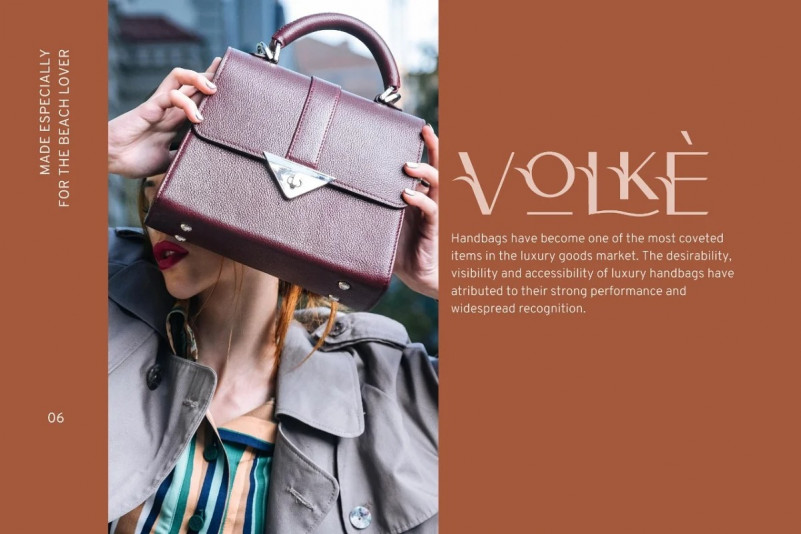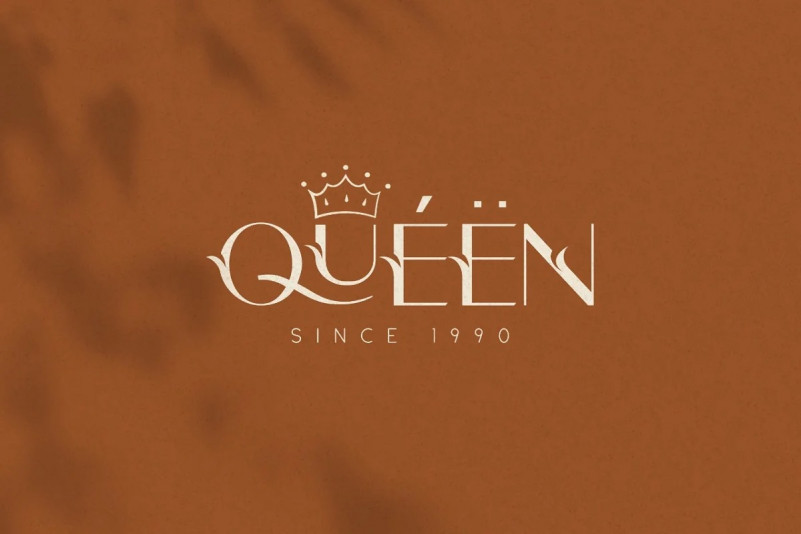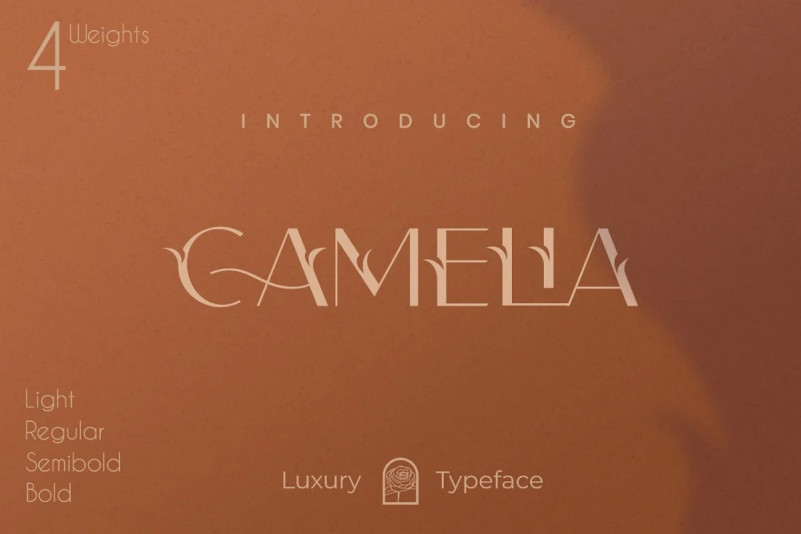
Camelia Font
Camelia Sans is an Elegant font with beautiful ligatures, tons of special alternative glyphs, ornament and multilingual support. It’s a very versatile font that works great in large and small sizes. Camelia Sans is perfect for branding projects, Logo design, Clothing Branding, product packaging, magazine headers, or simply as a stylish text overlay to any background image.